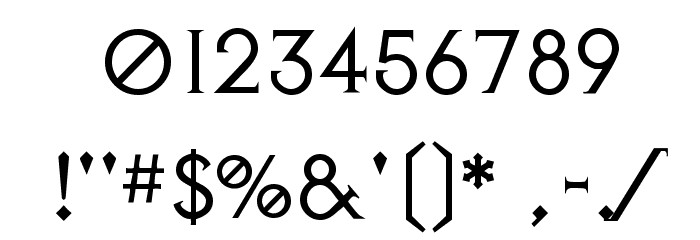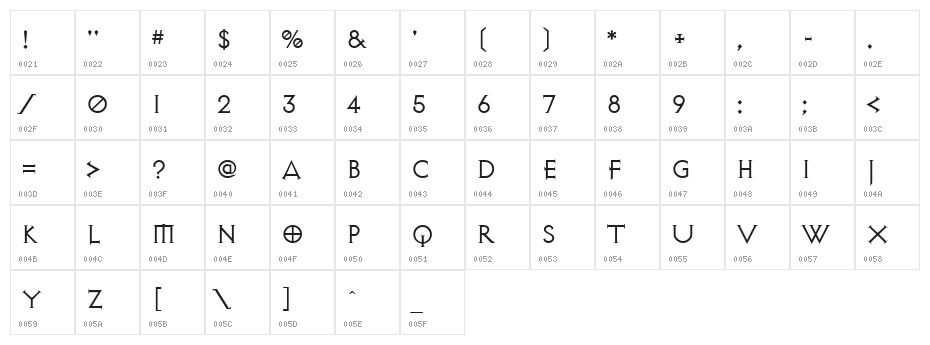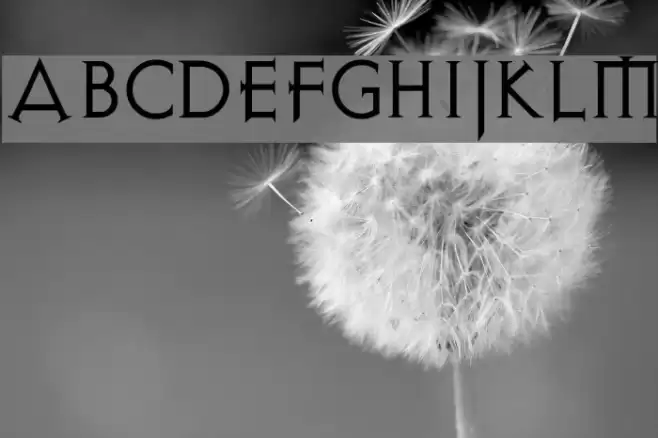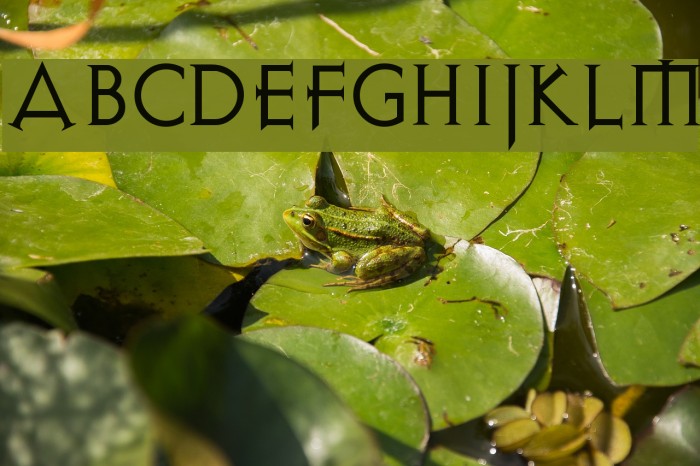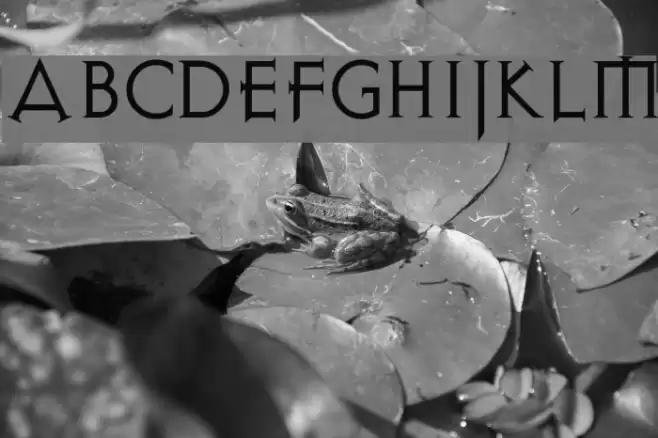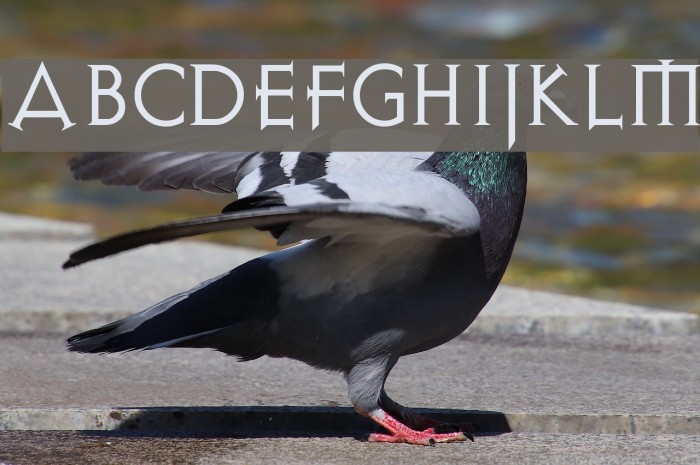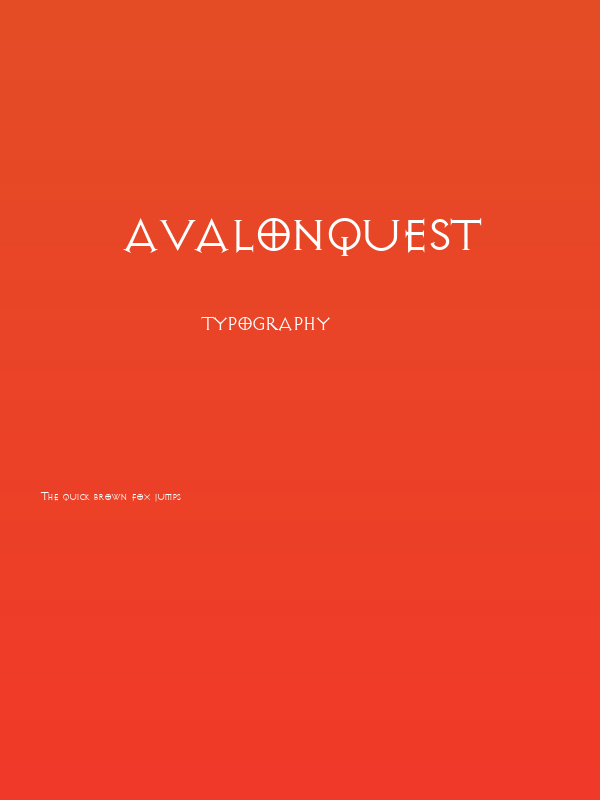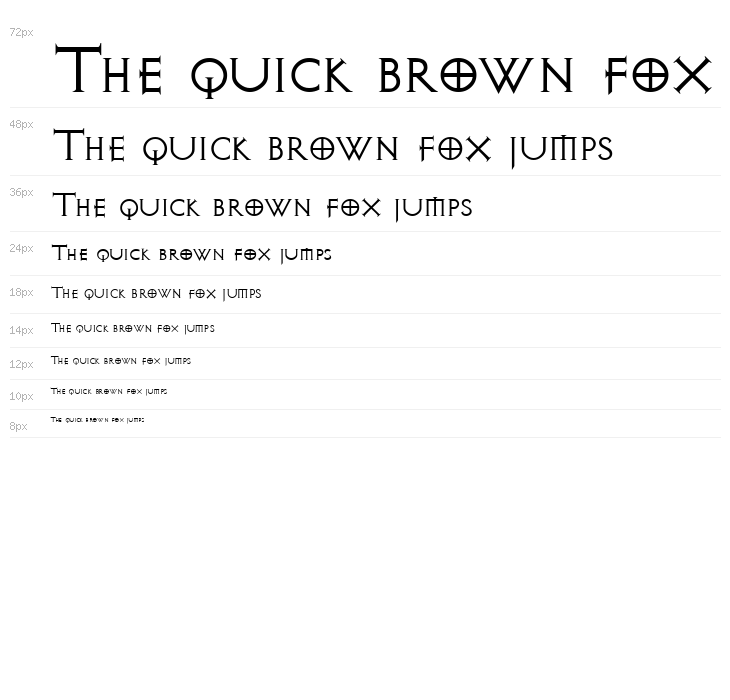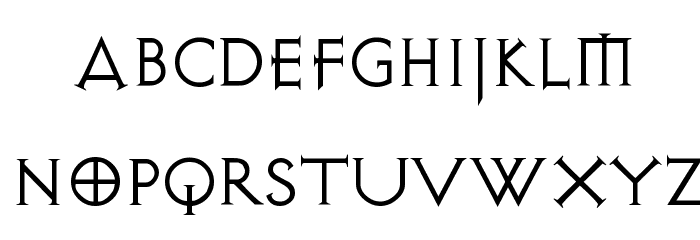
AvalonQuest Font
AvalonQuest Description
This font features a unique blend of medieval and modern design elements, with sharp, angular serifs and a distinct geometric influence. The uppercase letters are bold and commanding, with a particular emphasis on the angular serifs that give the font a sense of authority and tradition. The lowercase letters maintain this strong presence, while the numerals are clean and straightforward, ensuring readability. Special characters are crafted with the same attention to detail, making them suitable for a variety of contexts. The overall design is both decorative and functional, making it ideal for projects that require a touch of elegance and historical flair.
| Proposed Projects | Ideal for fantasy-themed projects, book covers, branding for historical or medieval-themed events, and decorative headings. |